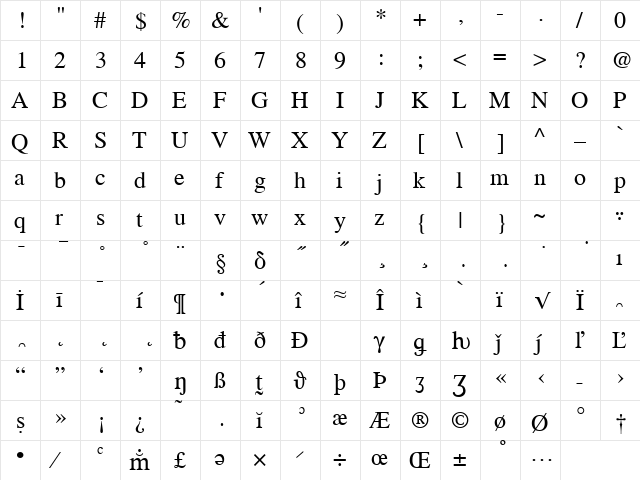
JAIS1 TTW Regular
Design Context for JAIS1 TTW Typeface
JAIS1 TTW is a composed and adaptable typeface that performs quietly and consistently across a wide range of design contexts.